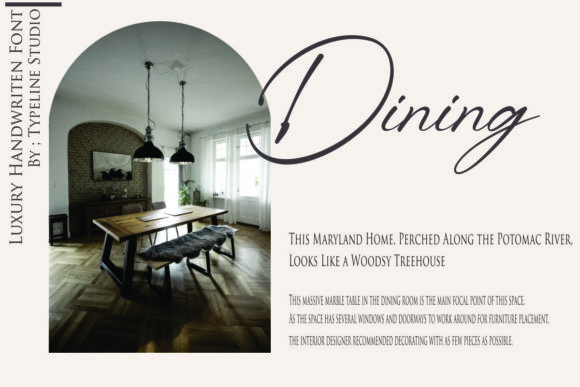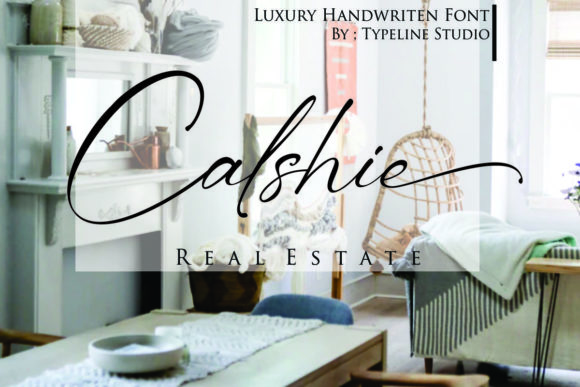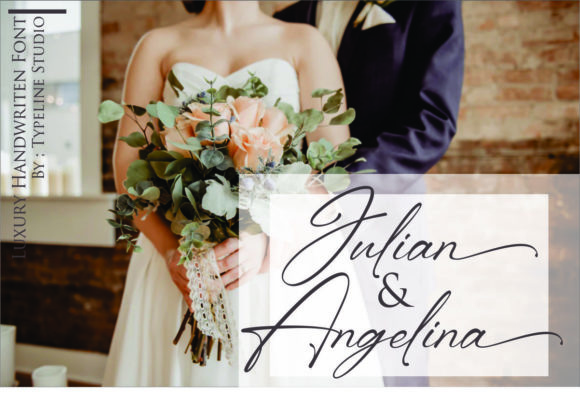
About Month Bllach Font
Month Bllach is a breathtaking script font that captivates with its ravishing beauty and exquisite detailing. With its meticulously crafted letterforms and elegant strokes, this font is a true work of art. Its flowing and graceful curves add a touch of sophistication and charm to any design project.
Whether you’re working on branding, logos, invitations, stationery, or any other creative endeavor, Month Bllach is a versatile font that can enhance your creations with its refined style. It effortlessly complements a wide range of topics and themes, making it a valuable asset for your font library.
The font’s attention to detail and high level of craftsmanship ensure that each letter has its own unique personality and adds a touch of luxury to your designs. It combines elegance with readability, allowing your message to shine through without sacrificing visual appeal.
One of the standout features of Month Bllach is its ability to elevate any creation. Whether you’re designing for a wedding, a fashion brand, a luxury product, or a lifestyle blog, this font has the potential to bring your vision to life and leave a lasting impression on your audience.
In addition, Month Bllach is versatile in its usage, as it can be paired with other fonts or used on its own as a focal point. Its stylish alternates and ligatures provide additional creative possibilities, allowing you to customize and personalize your designs.
In conclusion, Month Bllach is a ravishing script font that offers a harmonious blend of elegance, refinement, and versatility. It has the power to enhance any design project, adding a touch of sophistication and beauty. Whether you’re a professional designer or a creative enthusiast, Month Bllach is a valuable asset that will elevate your creations to new heights.